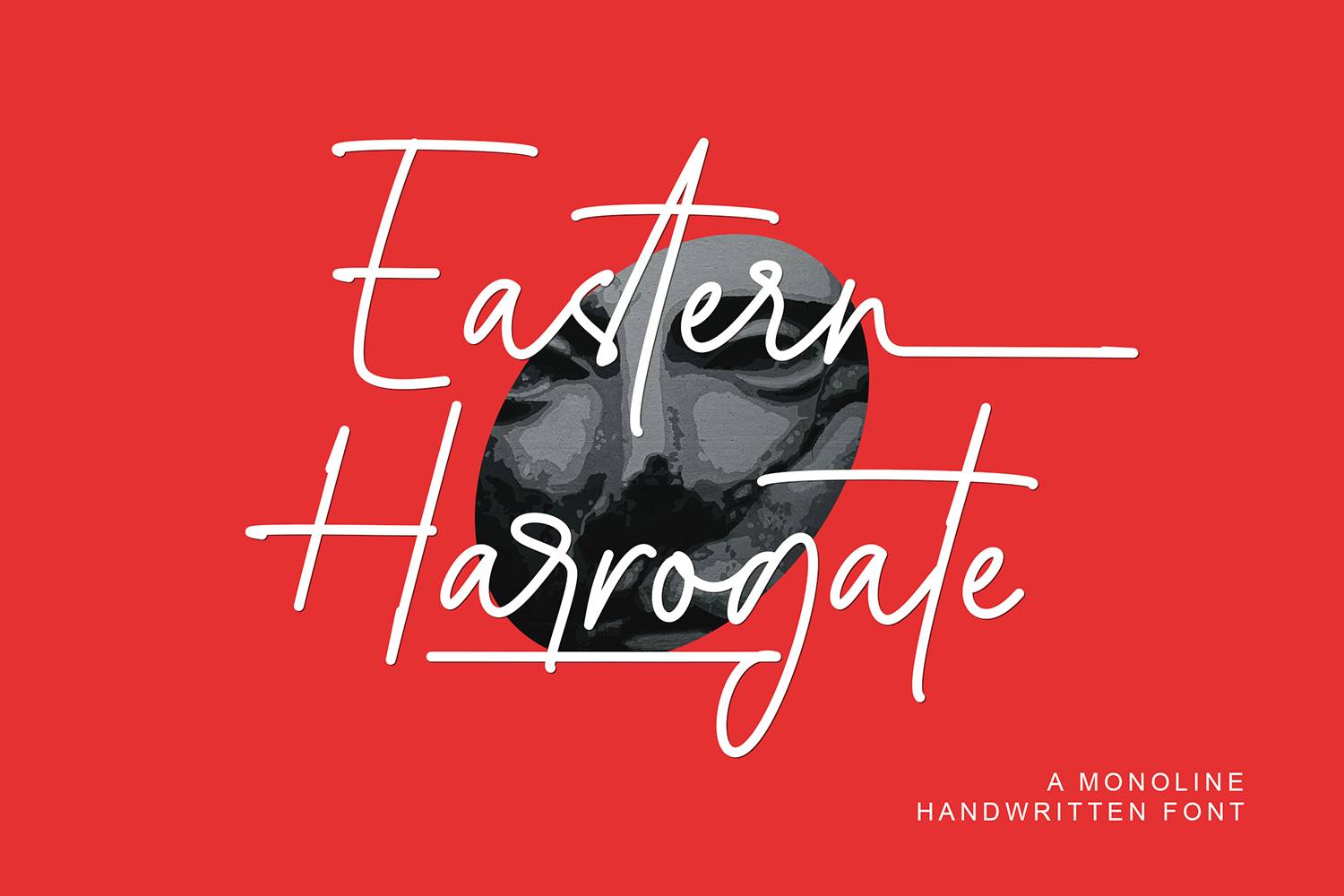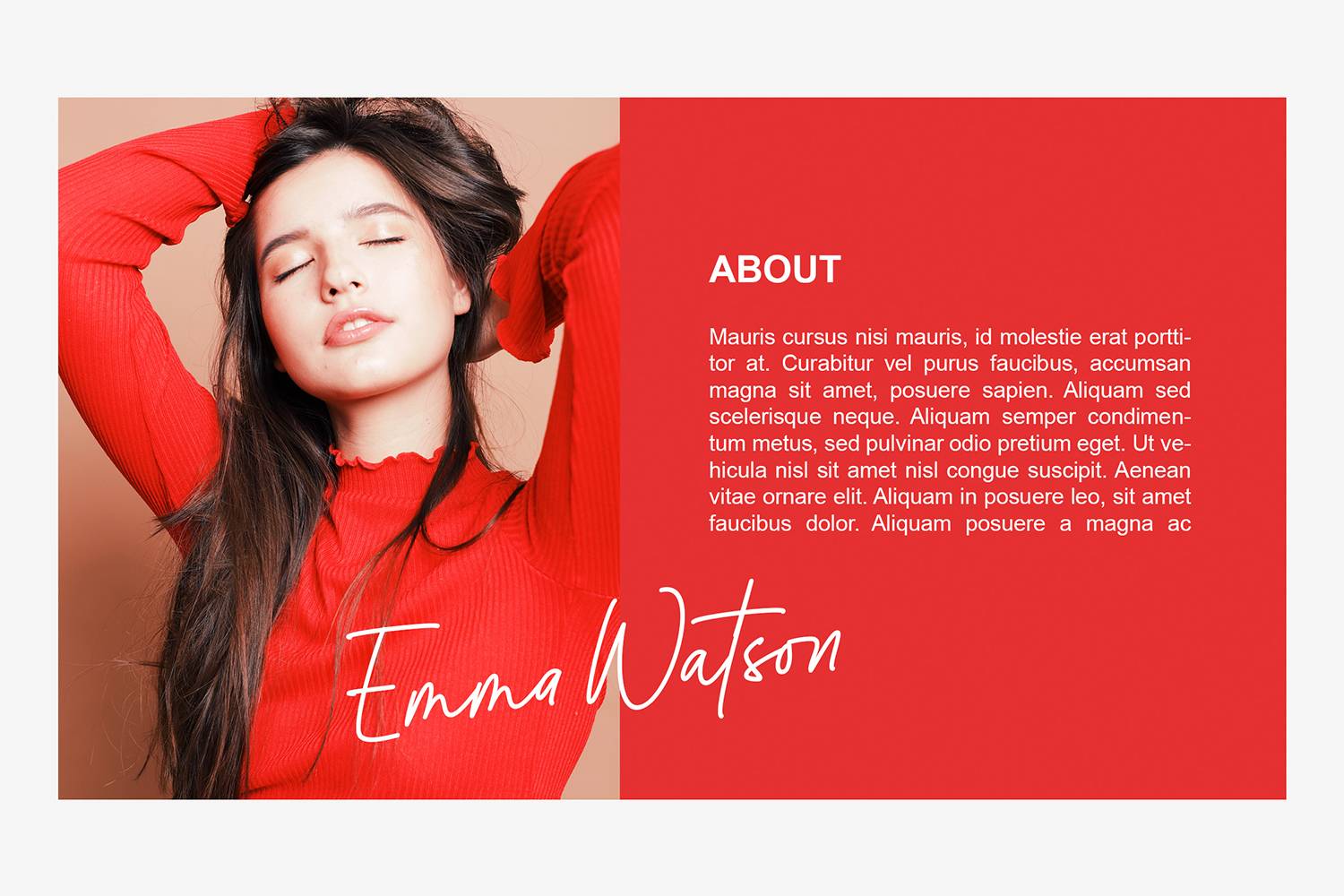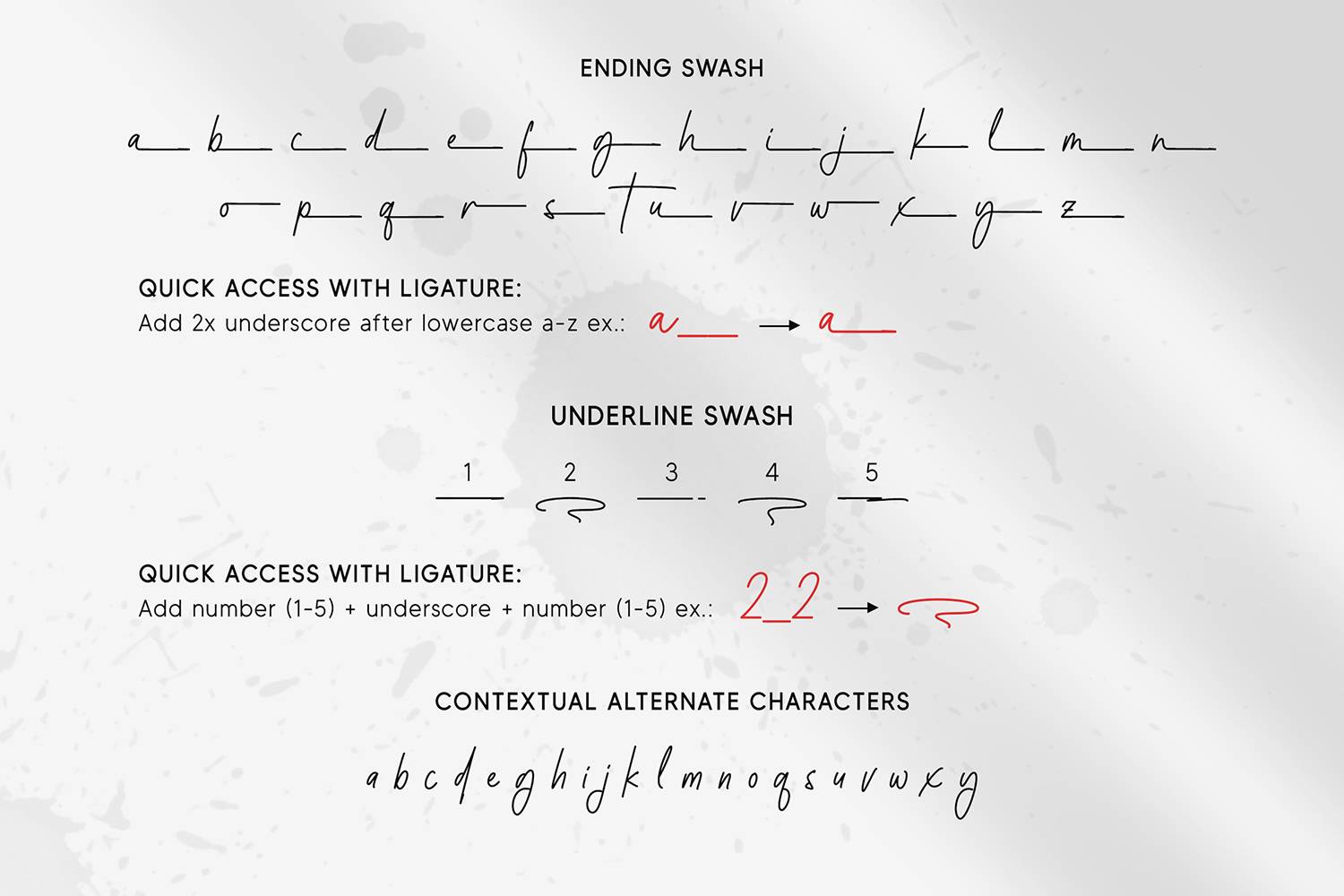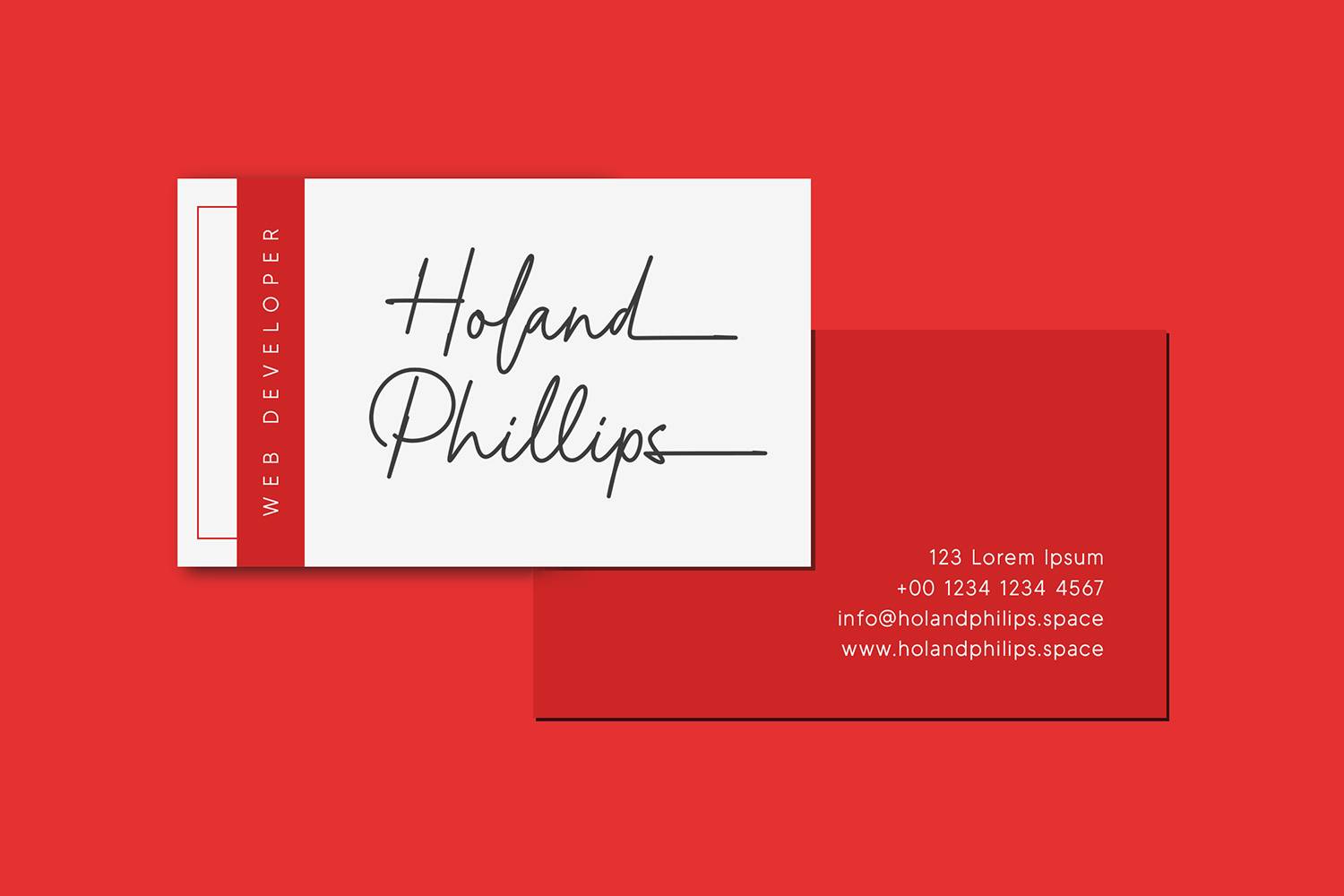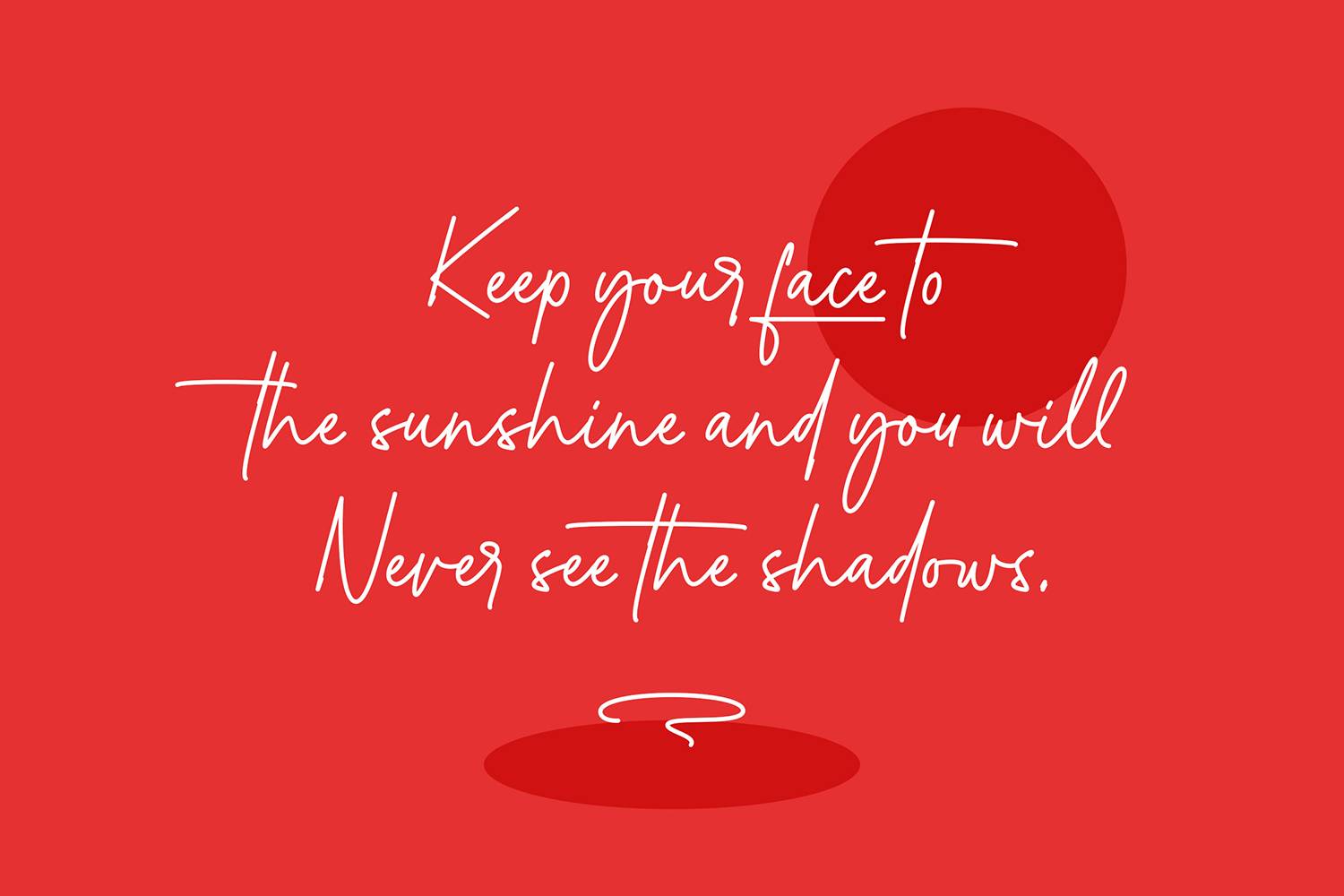
Eastern Harrogate is a stylish handwritten script font with a light weight and an airy, elegant feel. Its tall, narrow letterforms and consistent, smooth strokes create a modern yet approachable look, perfect for adding a personal touch to branding, invitations, or social media graphics. This font shines in display uses where a casual, refined personality is desired.
Eastern Harrogate Font
About Eastern Harrogate Font
| Font family | Eastern Harrogate Font |
| Designer | Dwi Ahidian |